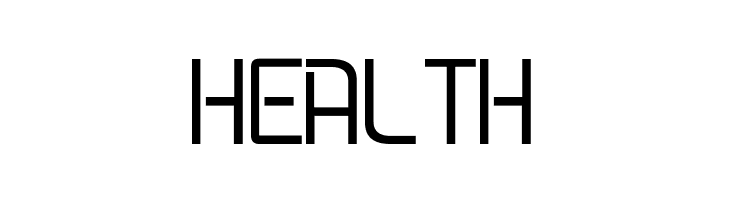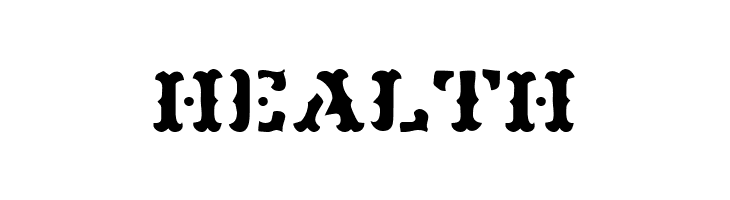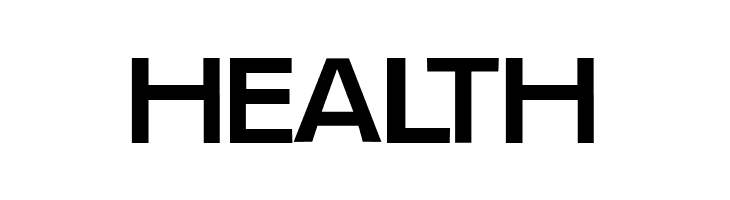
A bold, distressed font with a static-like texture, perfect for impactful designs.
A bold, stencil-style font with geometric uniformity and high legibility.
Ornamental dingbat font with sunburst and circular motifs.
A playful, hand-drawn display font with a cartoonish style.
A collection of classic audio and video equipment control icons in a monochromatic style.
A whimsical decorative font with cartoon bug characters.
A playful dingbat font with whimsical hand-drawn illustrations replacing traditional characters.
A set of bold, geometric symbols with a modern, artistic style.
Retro 1950s-themed decorative icon set with bold, playful illustrations.
Eclectic pictogram and dingbat set with bold, playful icons.
A decorative set of music-themed graphics and symbols.
Bold, enclosed characters with a vintage TV-inspired style.
A bold, sans-serif typeface with a modern, geometric style.
Cartoon emoticon dingbat font with diverse facial expressions.
Ornamental dingbat font with diverse star and geometric motifs.
A rugged, textured font with a splintered, hand-drawn aesthetic.
A playful and nostalgic set of 1950s-themed icons with bold, retro designs.
A playful dingbat font with school-themed icons.
A rugged, textured font with a splintered, edgy design.
A bold, decorative font with artistic flourishes and playful twists.